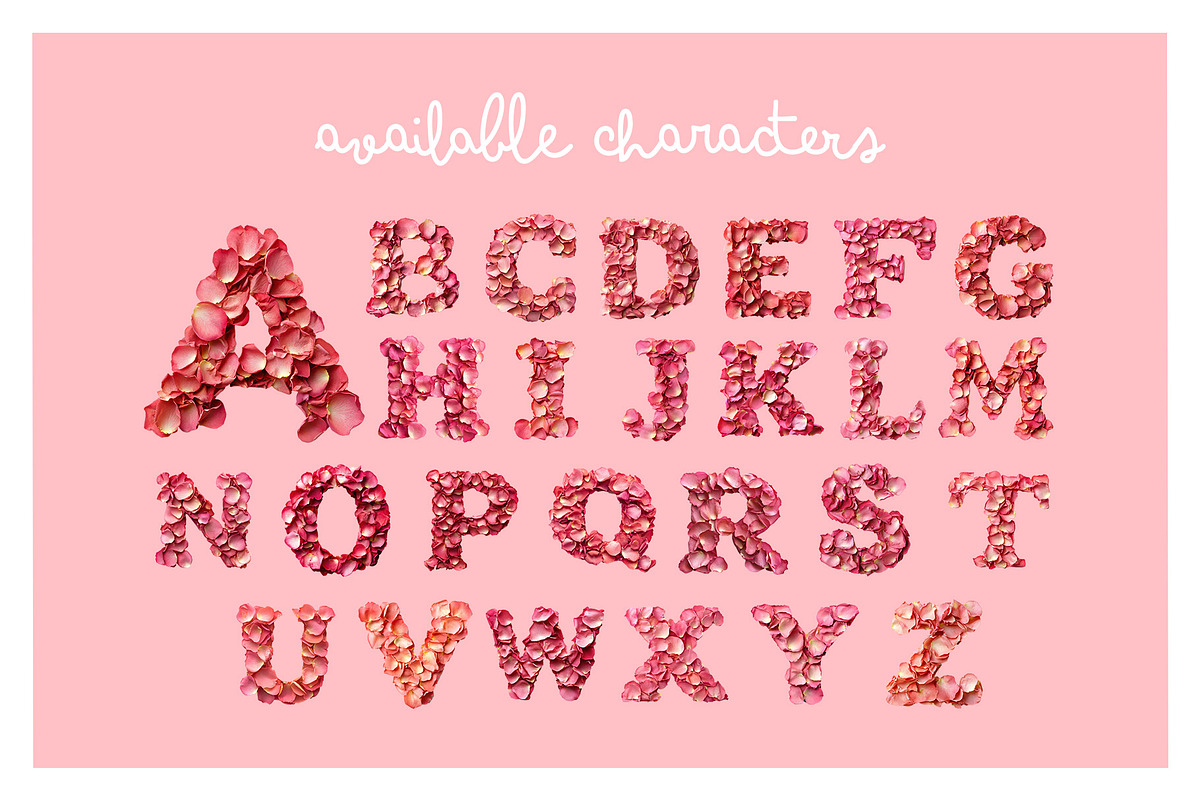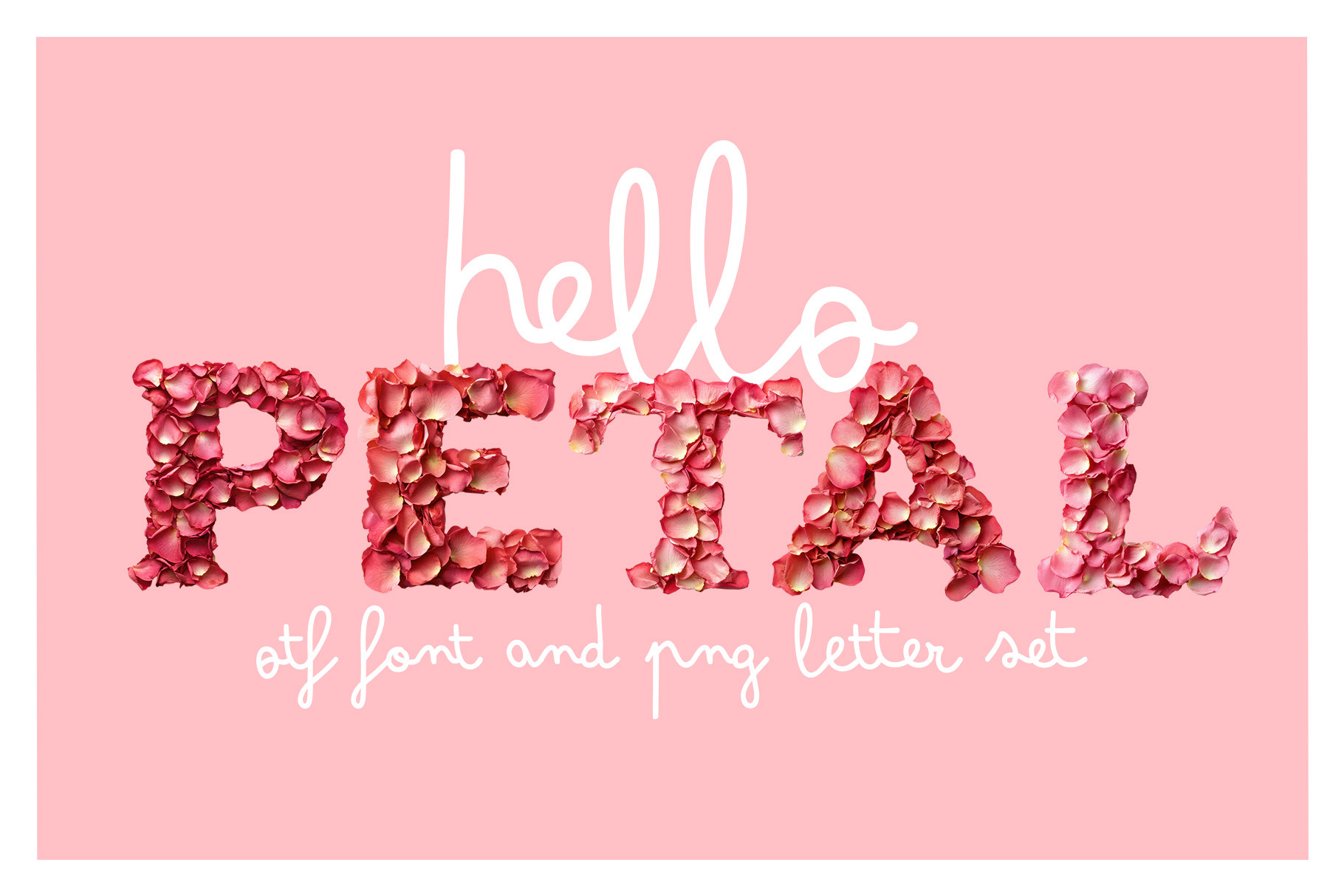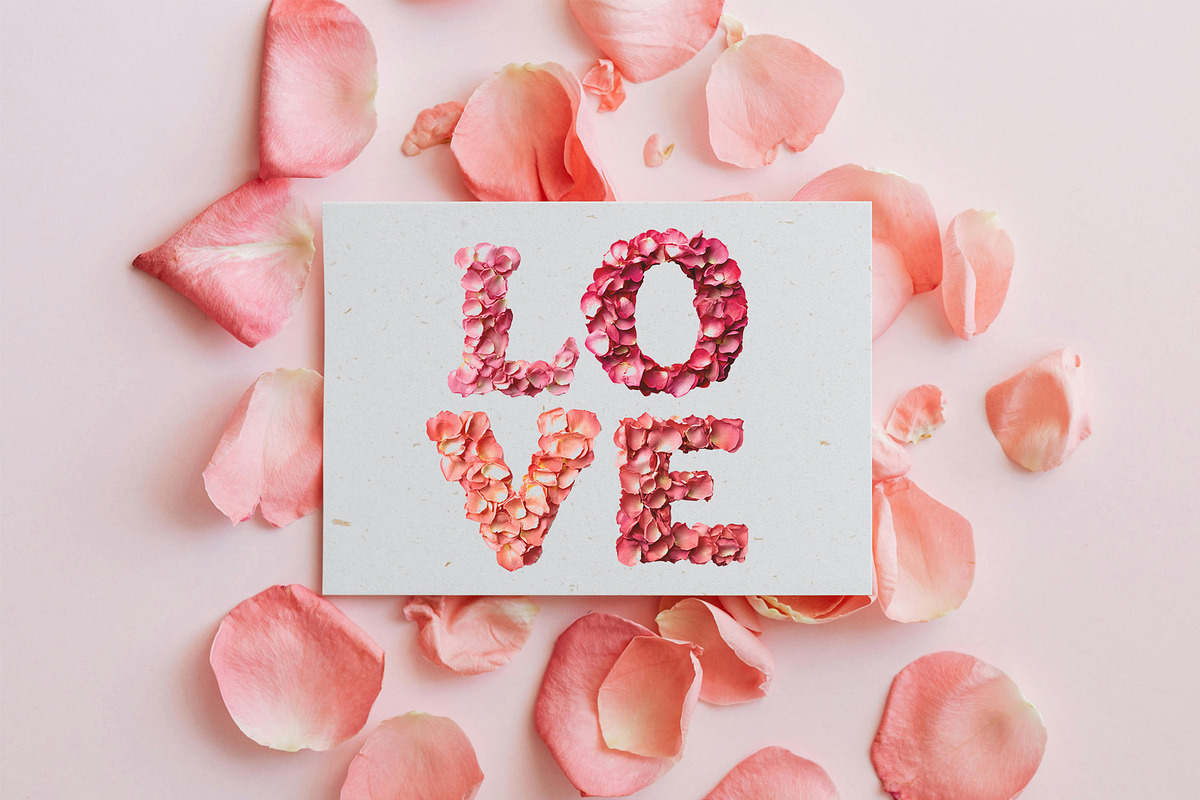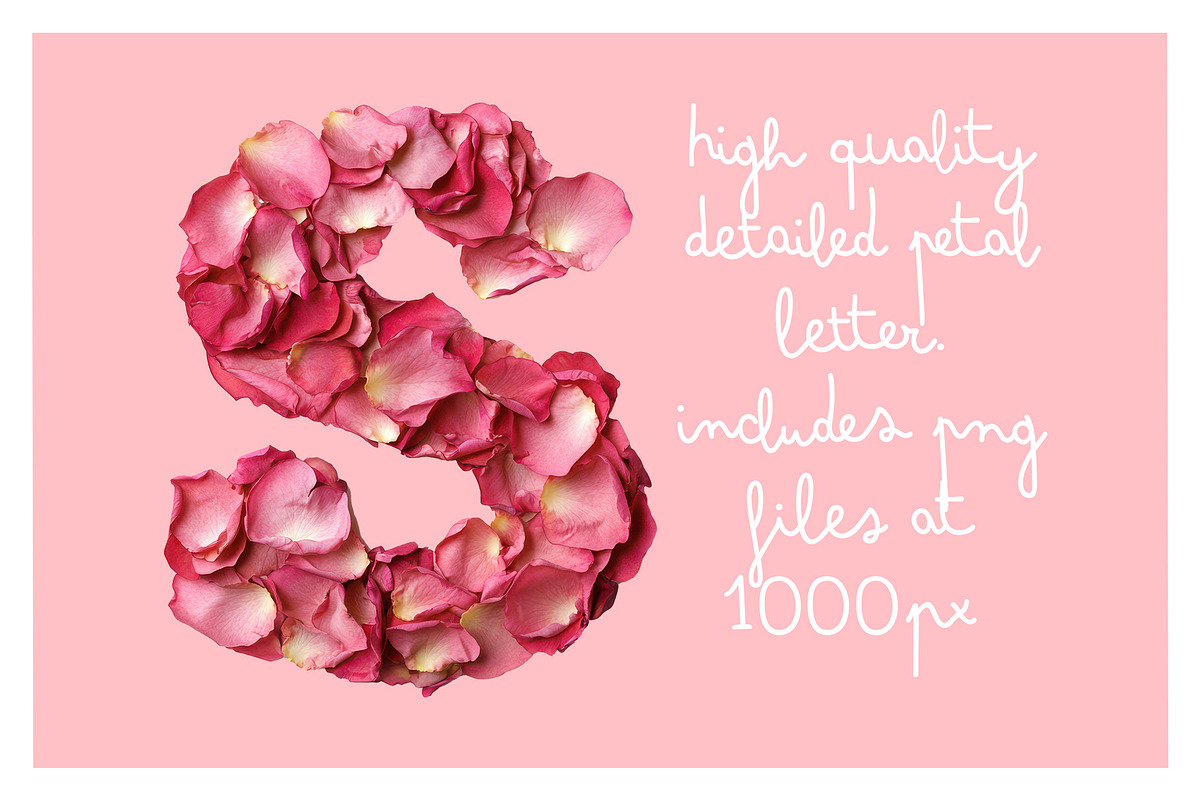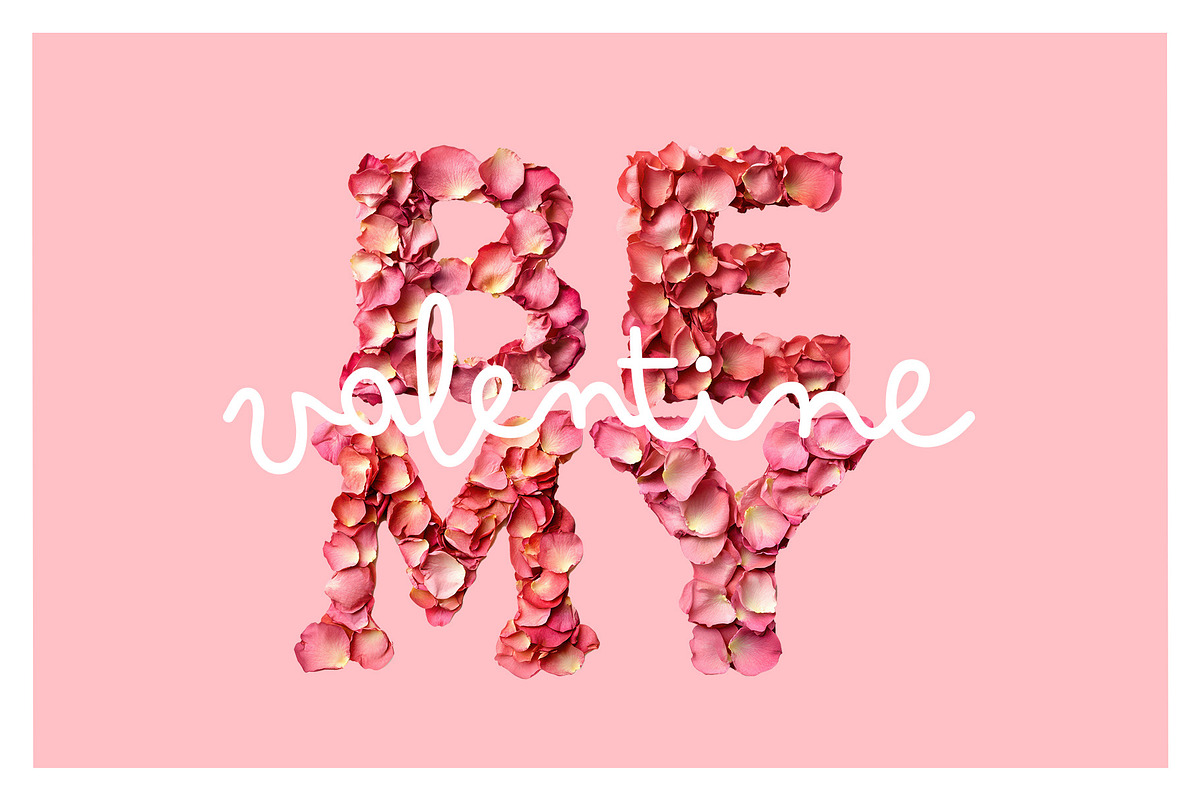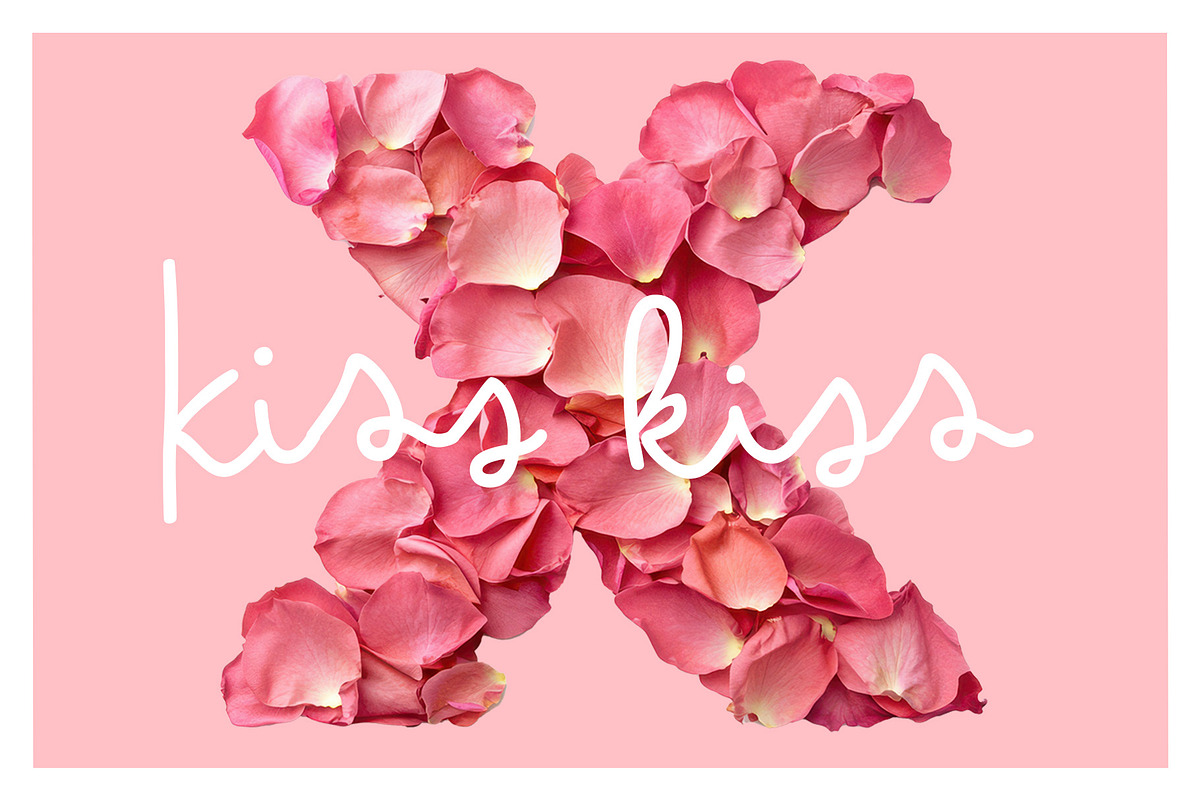
Petal OTF Font
Petal: A Vibrant OTF Color Font Blooming with Floral Elegance
Infused with the magic of romance, Petal Typeface is a delicate, petal-crafted font that radiates love and charm. Each letter is lovingly designed from soft, flowing petals, reminiscent of blooming roses and tender moments. Perfect for Valentine’s Day cards, love letters, wedding invitations, or any design that calls for a touch of romance.
Whether you're creating heartfelt messages, dreamy decor, or branding that speaks to the language of love, Peal Typeface adds an enchanting, floral elegance. Pair it with soft pastel tones, romantic illustrations, or gold accents to bring out its full Valentine’s allure. Let Petal help you say it all, with petals full of passion and poetry.